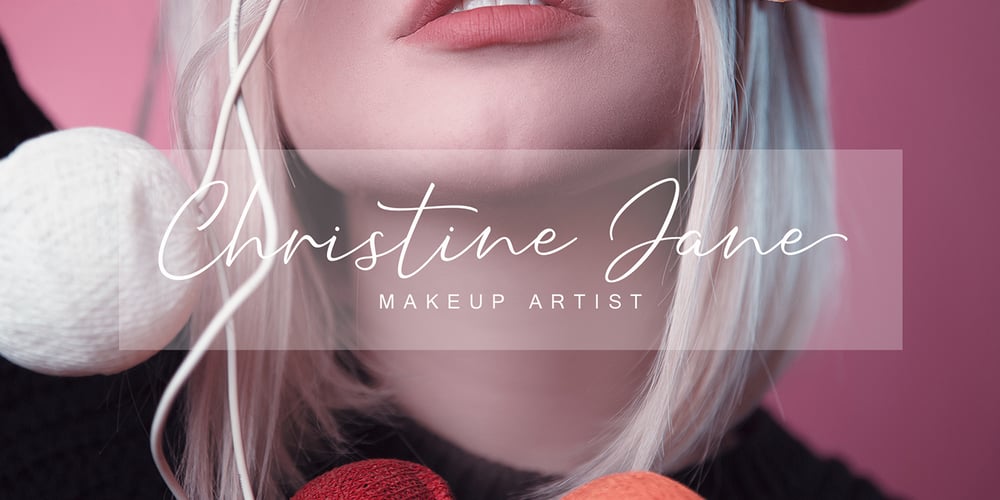
Hanthem Script
Hanthem Script font
Hanthem Script Font Family was designed by Fajar Gunawan and published by Fargun Studio. Hanthem Script contains 1 styles and family package options. Hanthem Script is modern script that perfect for photography, branding, signature. It is so beautiful and classy for your projects. This Font has given PUA code (specially coded fonts). So that all the alternate characters can easily be accessed in full by a craftsman or designer.